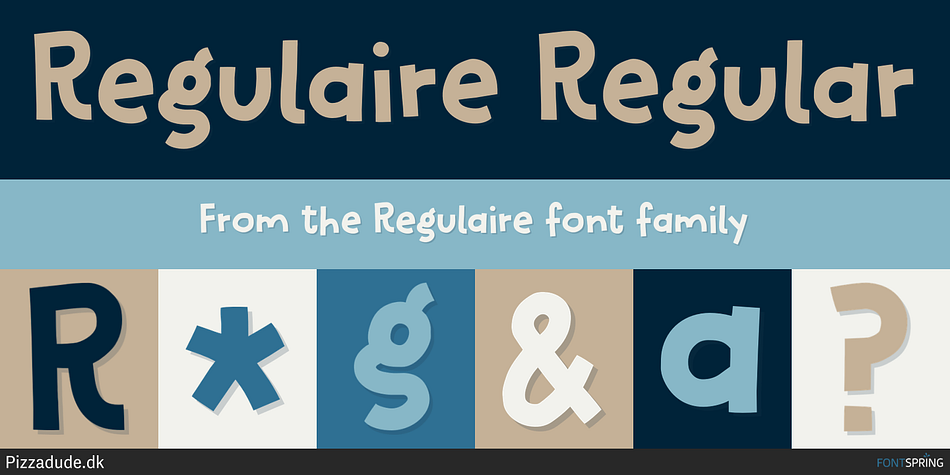
Regulaire Regular
Designed by Jakob Fischer, Regulaire is a display sans, hand drawn and kids font family. This typeface has four styles and was published by Pizzadude.dk.
Regulaire is my laid back comic font, inspired by graffiti and my everyday handwriting.
Works quite nice for kids products, comics, party posters - or anything that needs a casual comic look!